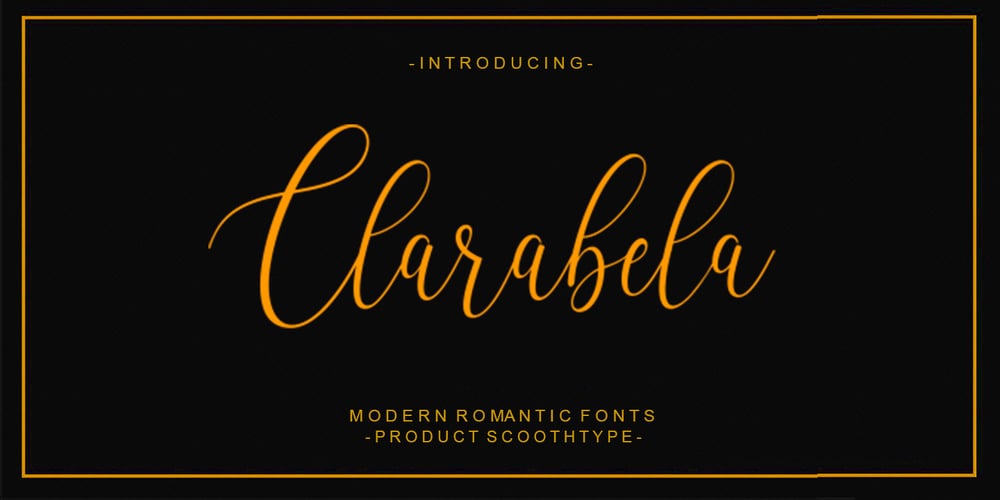
Clarabela
Clarabela font
Clarabela Font Family was designed by Muammar and published by Scoothtype. Clarabela contains 2 styles and family package options. Clarabela is a handwritten font with varied base lines, designed to convey elegance and style. It’s smooth, clean and feminine. Clarabela also has a slanted style that looks beautiful and more elegant.Works perfectly for logos, magazines, menus, books, greeting cards, packaging, labels, t-shirts etc. All your designs will have an amazing homemade touch with Clarabela.Clarabela is coded with PUA Unicode, which allows full access to all additional characters without having special design software. Mac users can use Font Book, and Windows to attach your favorite text editor/application.To activate the OpenType Stylistic alternative, you need a program that supports OpenType features such as Adobe Illustrator CS, Adobe Indesign & CorelDraw X6-X7, Microsoft Word 2010 or newer versions. And there are additional ways to access alternatives/swash, using Character Map (Windows), Nexus Fonts (Windows), Font Books (Mac) or software programs like PopChar (for Windows and Mac).If you need help or advice, please contact me via email.